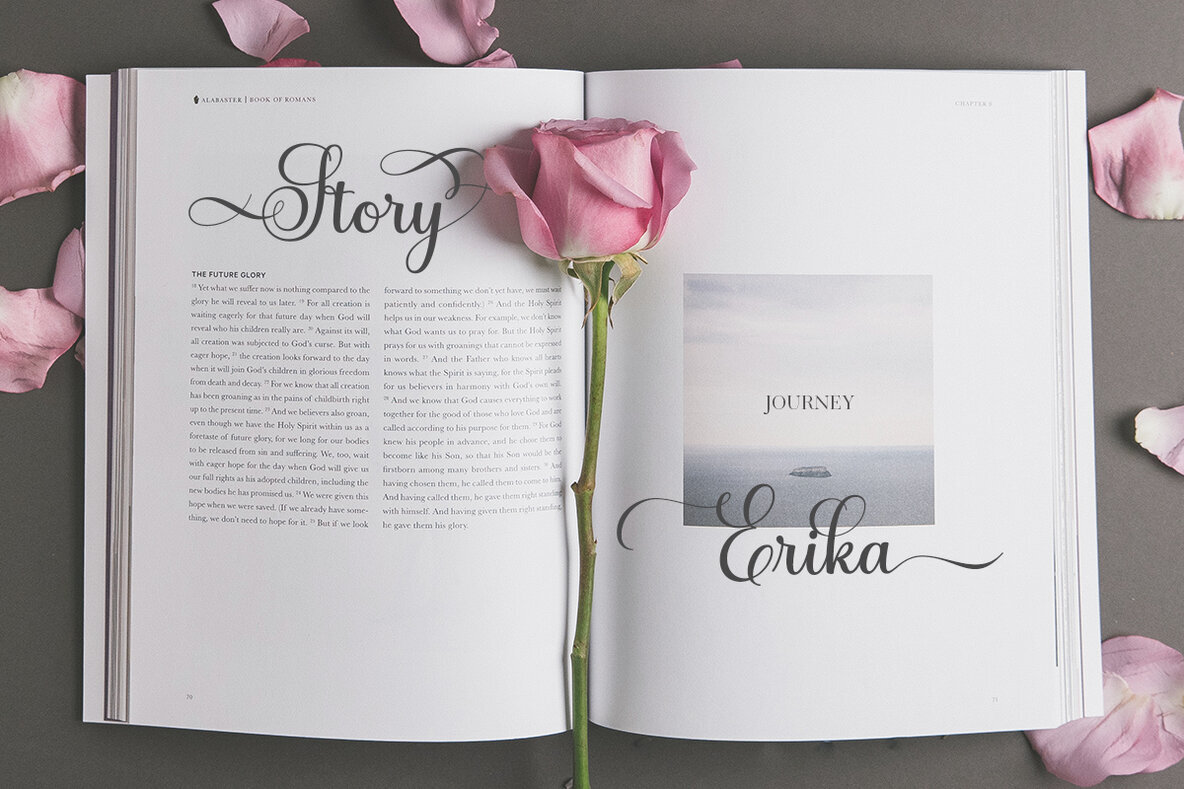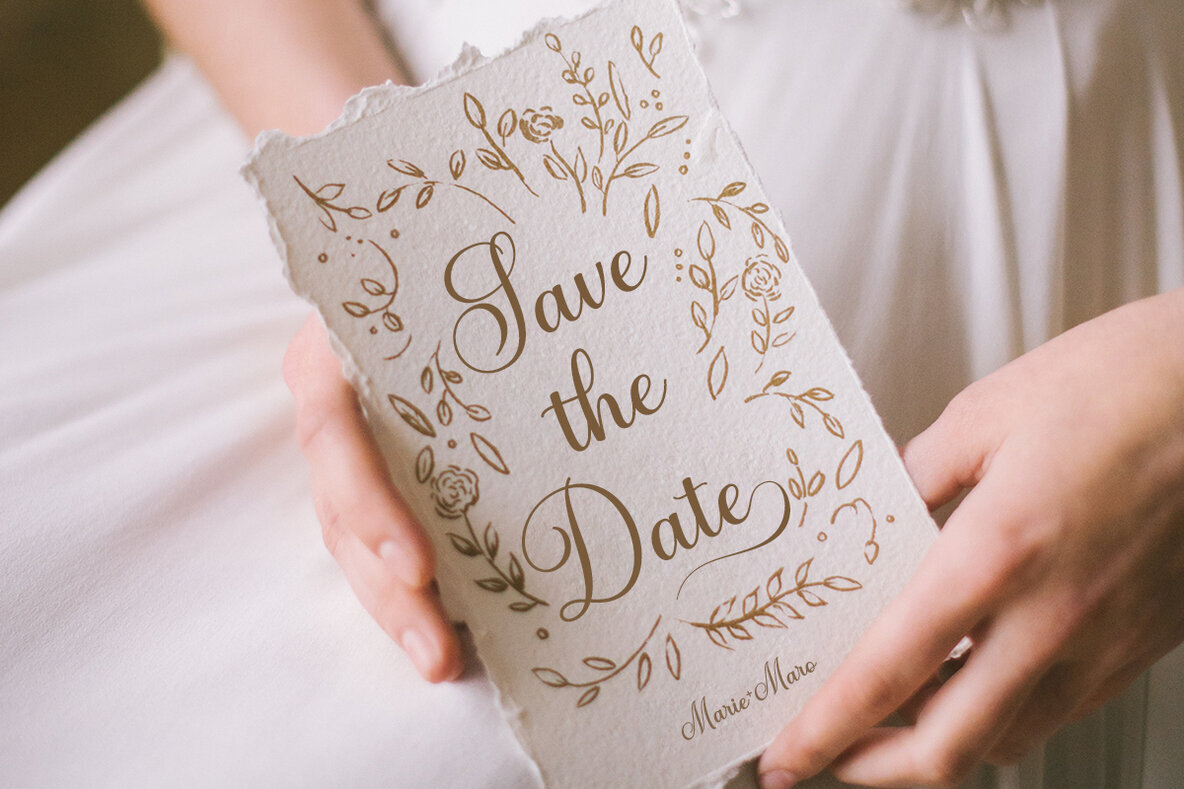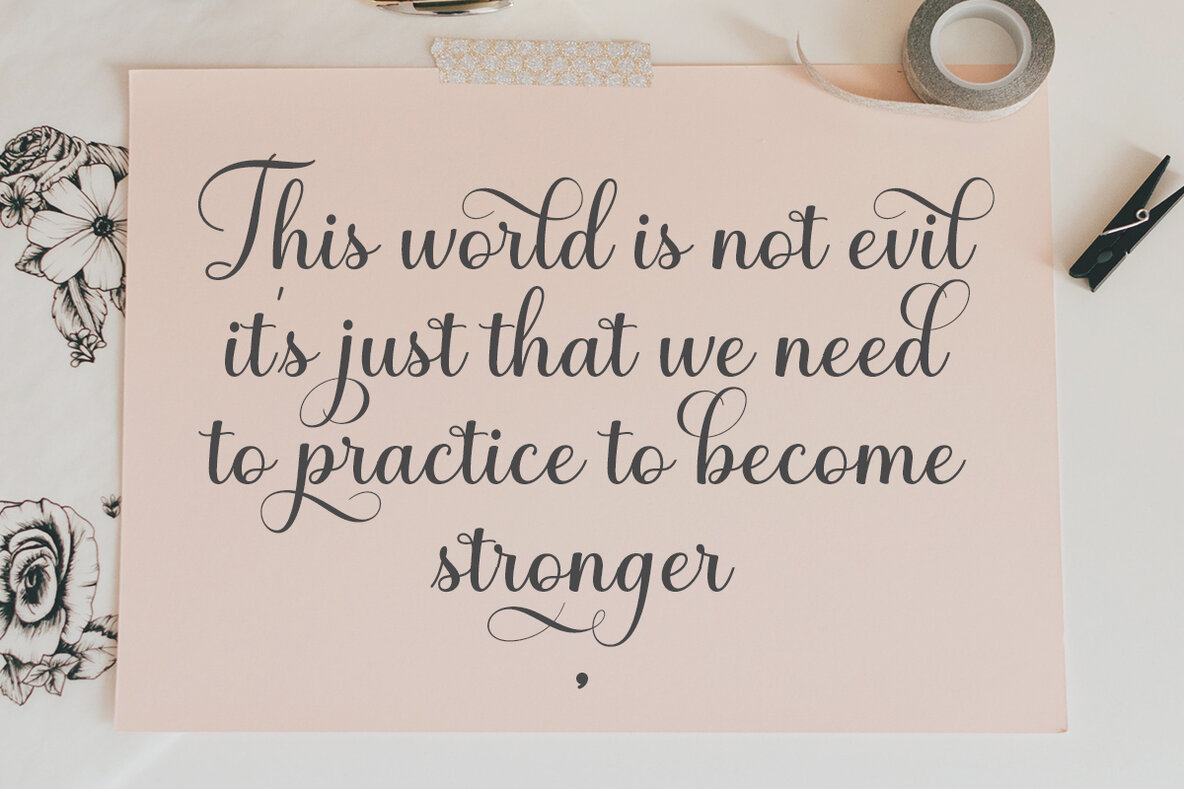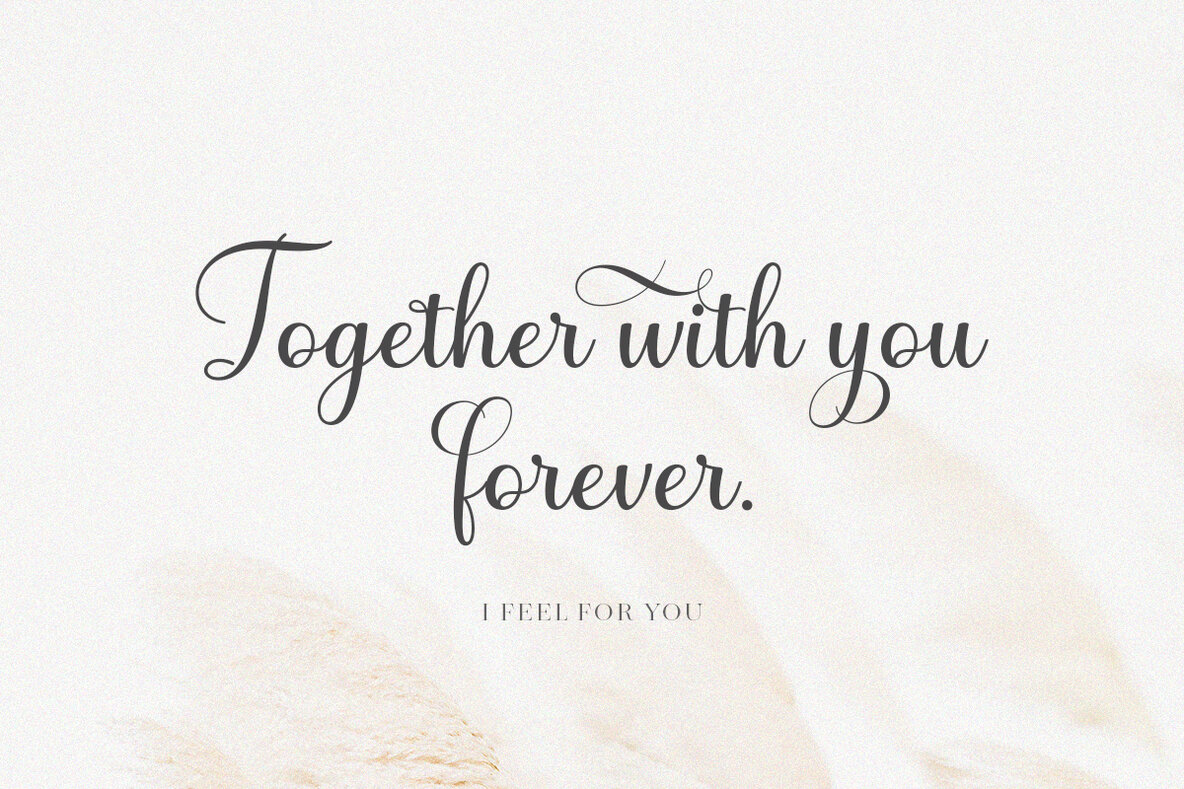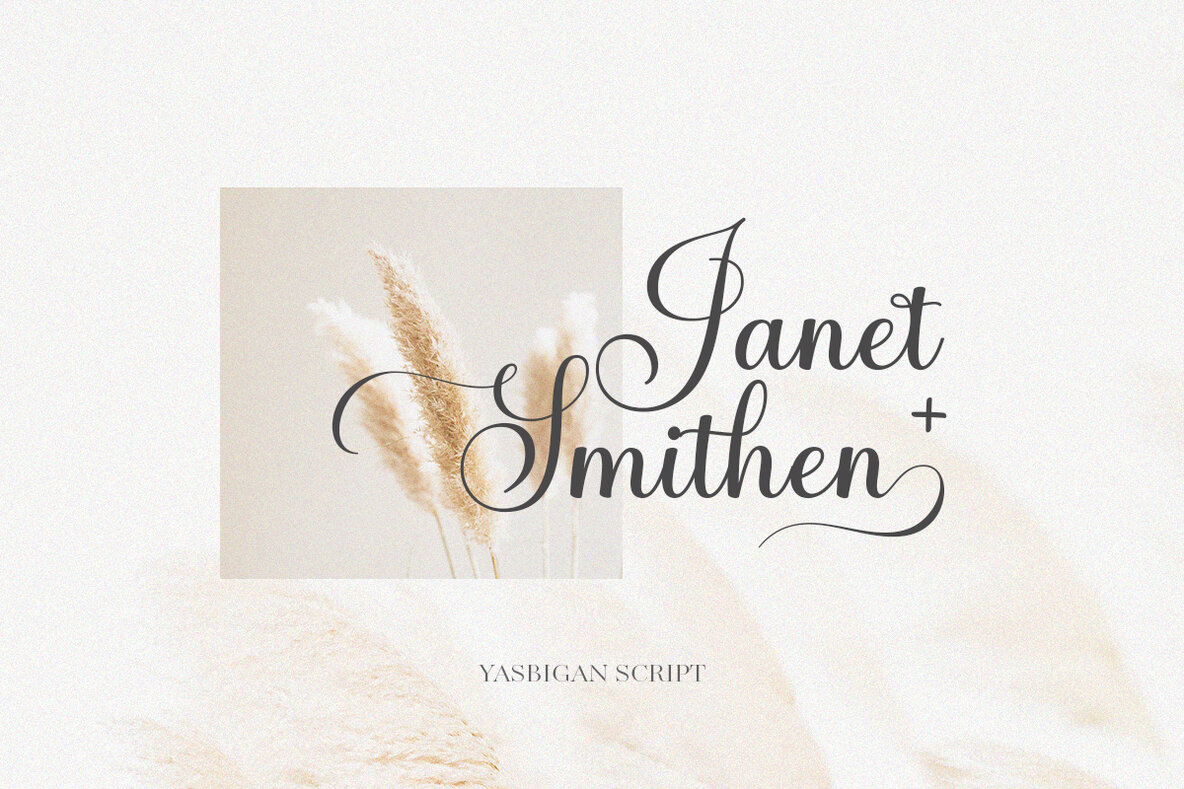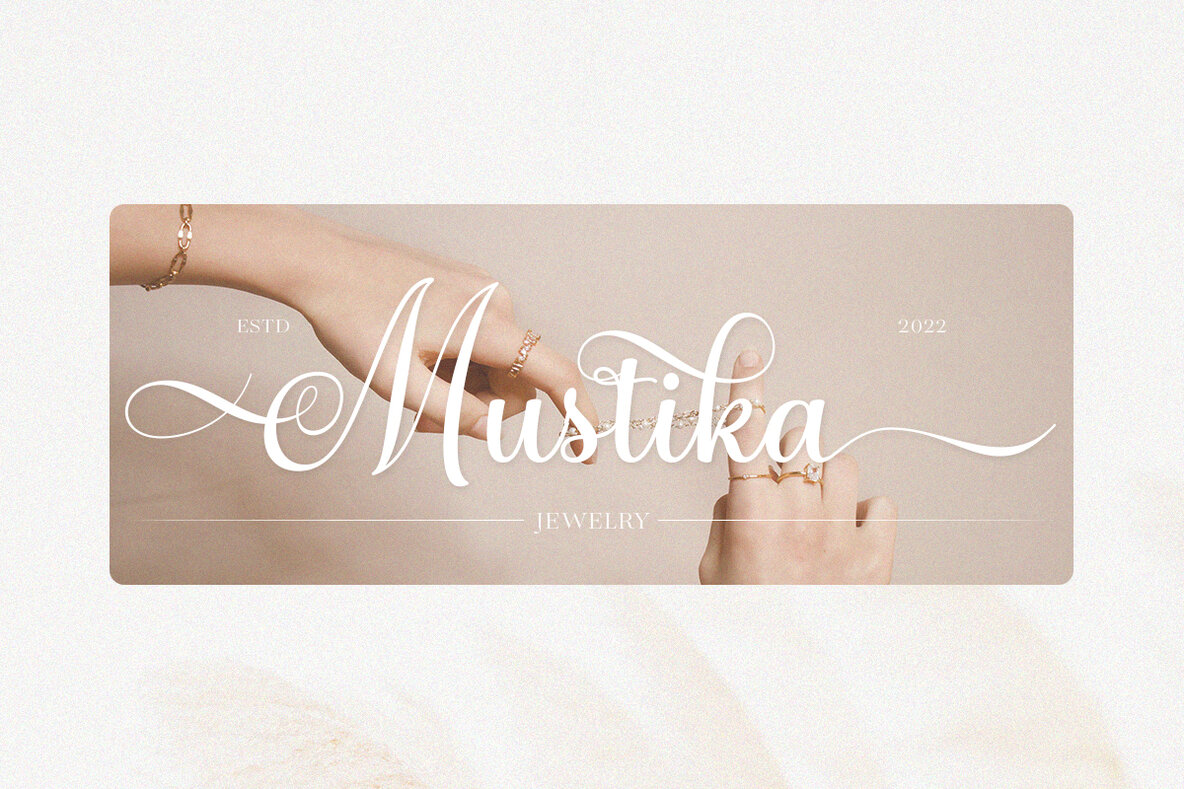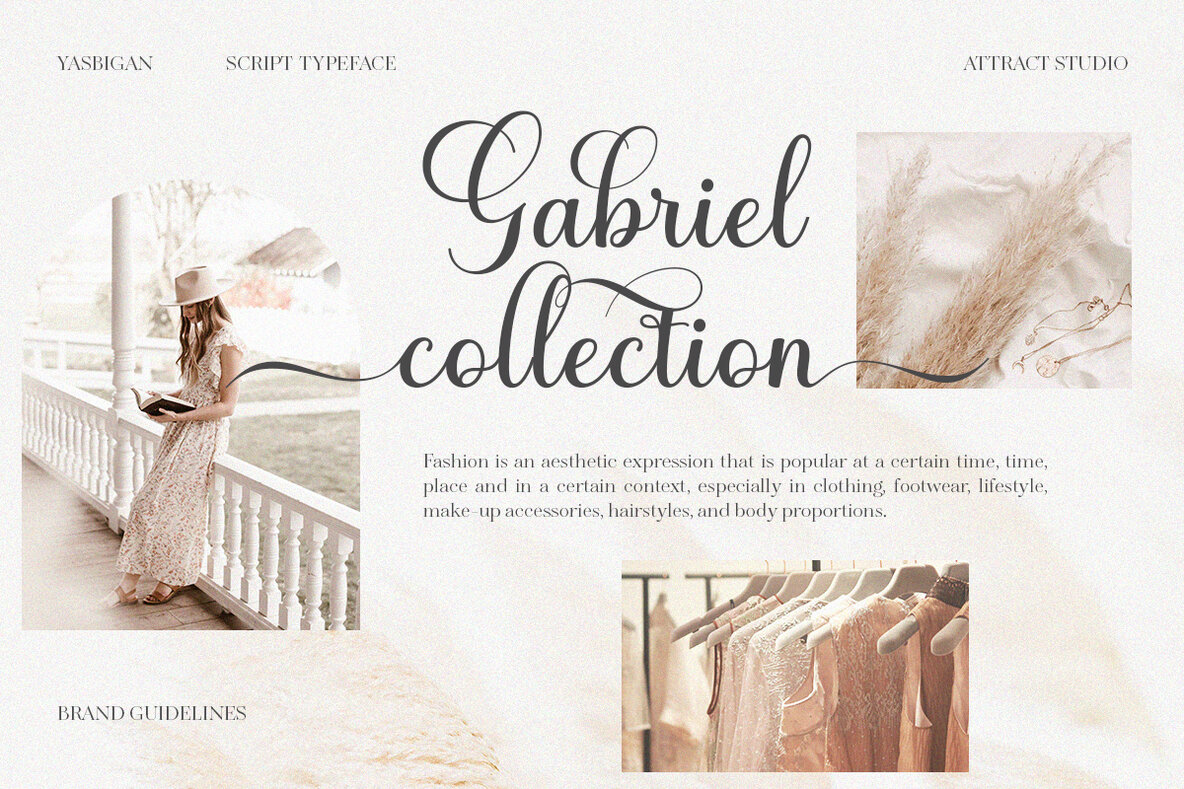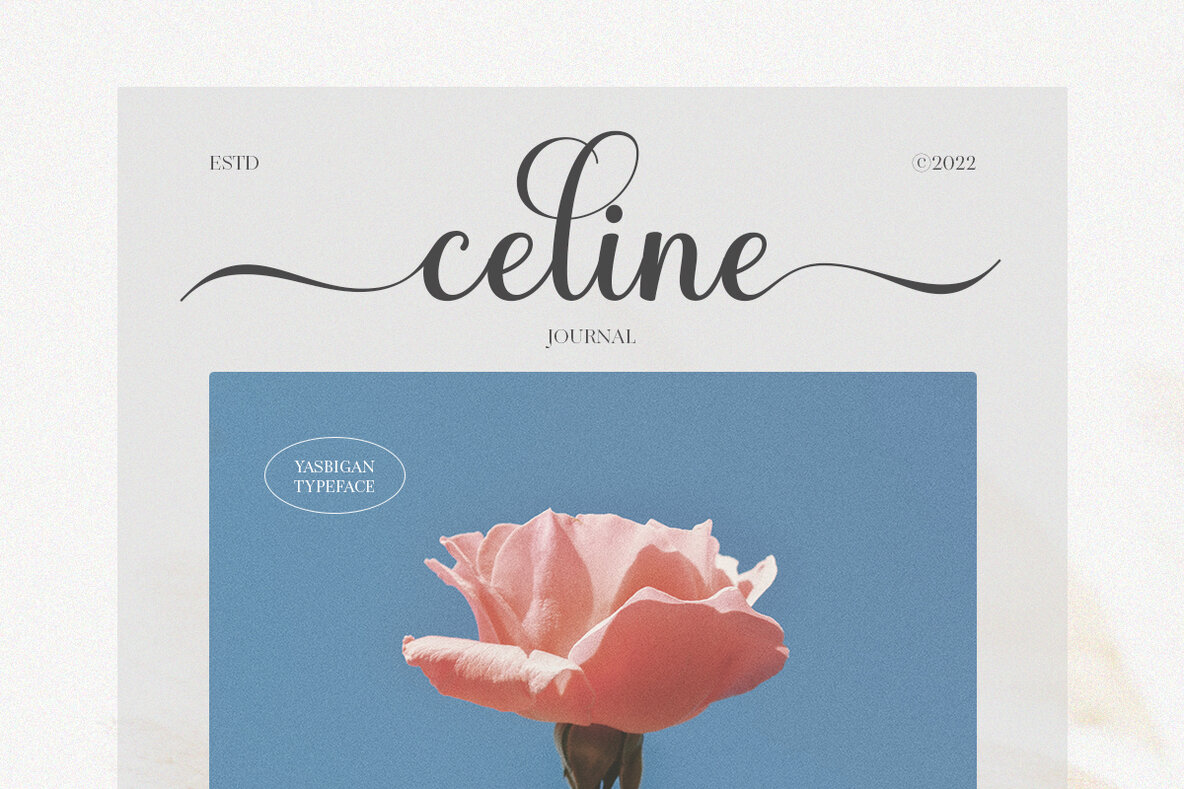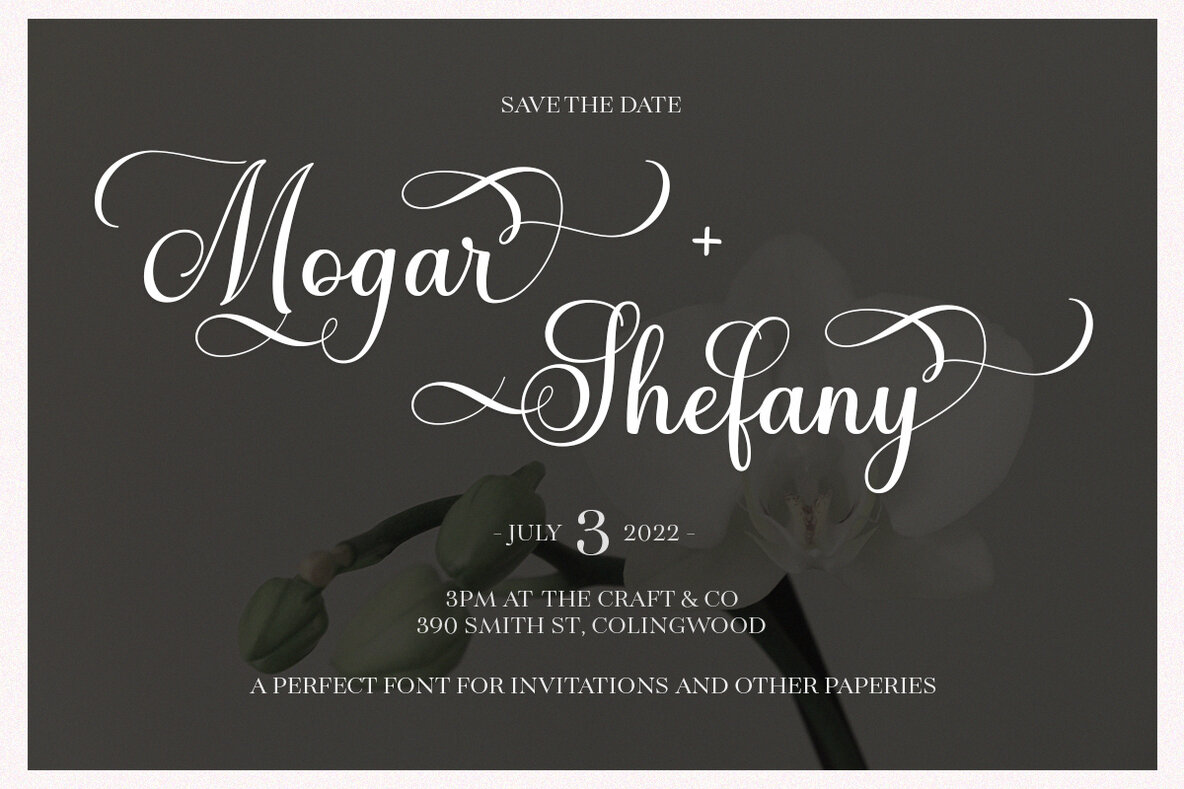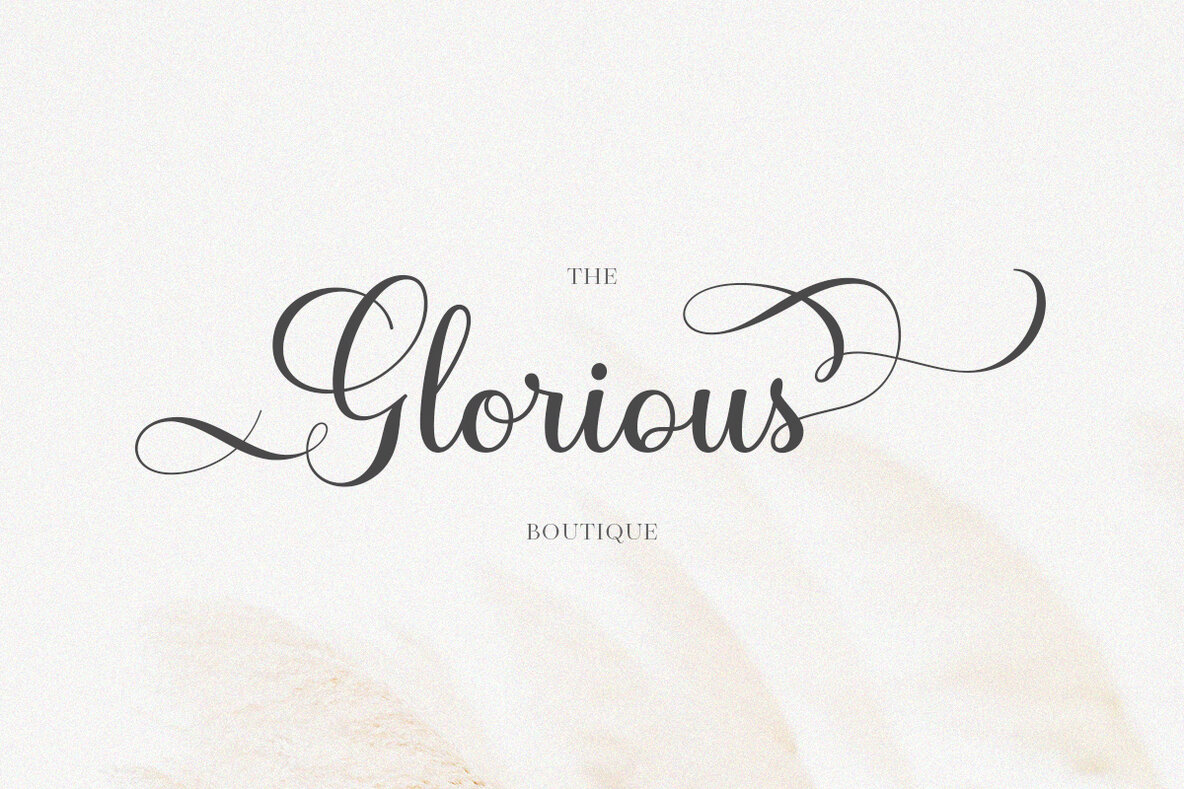
Yasbigan Font
Yasbigan Script
Yasbigan Script brings a timeless elegance to your typographic repertoire. This graceful font is ideal for evoking sophistication and charm in wedding invitations, save-the-date cards, and feminine branding projects.Yasbigan Script: Elegance in Modern Typography